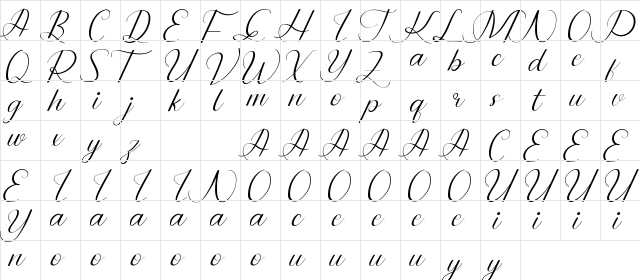
Dinernighty Demo Regular
Regular · CalligraphyFonts.net Widiyanti & Suci Anita ·
Foundry CalligraphyFonts.net
DesignerWidiyanti & Suci Anita
Design Context for Dinernighty Demo Typeface
Dinernighty Demo is a composed and adaptable typeface that performs quietly and consistently across a wide range of design contexts.